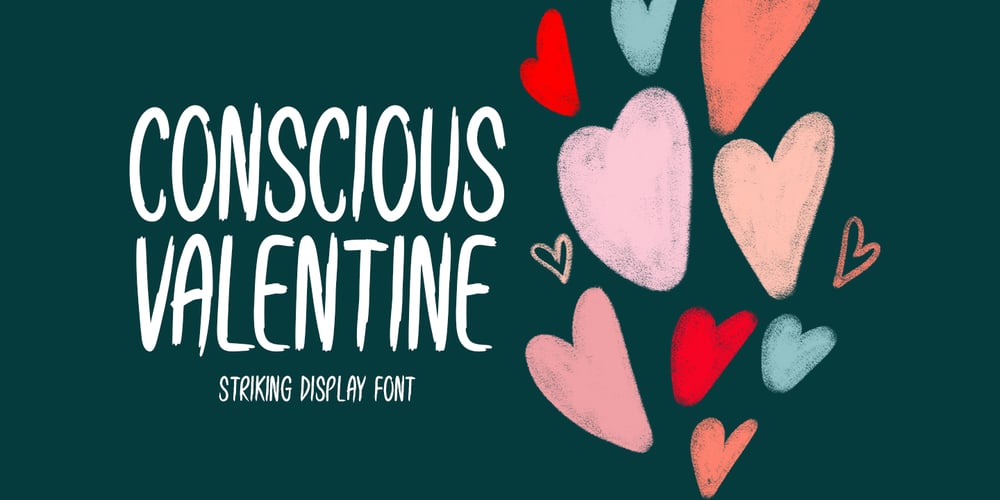
Conscious Valentine Font Family was designed by Md Shohail Bhuian and published by Seemly Fonts. Conscious Valentine contains 1 styles and family package options. Conscious Valentine is a brushed display font. Conscious Valentine is perfectly suited for stationery, logos, t-shirt, paper, print designs, website headers, photo frames, flyers, music covers, posters, image sliders, and much more.